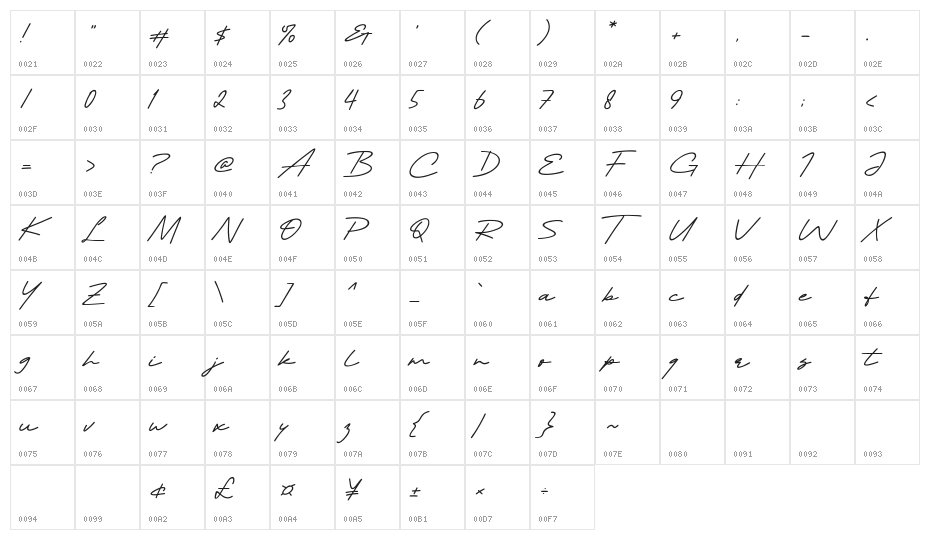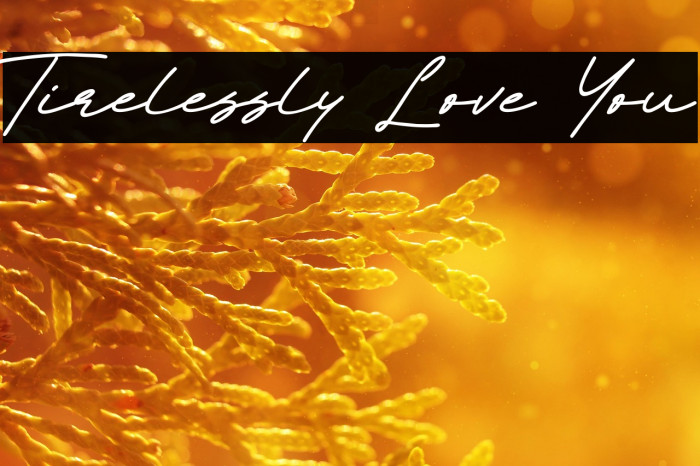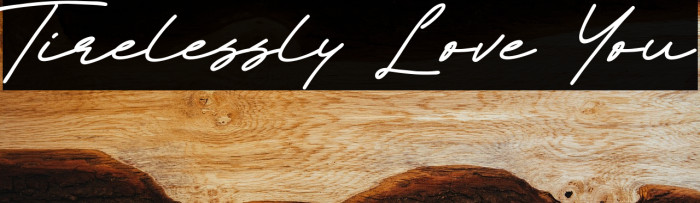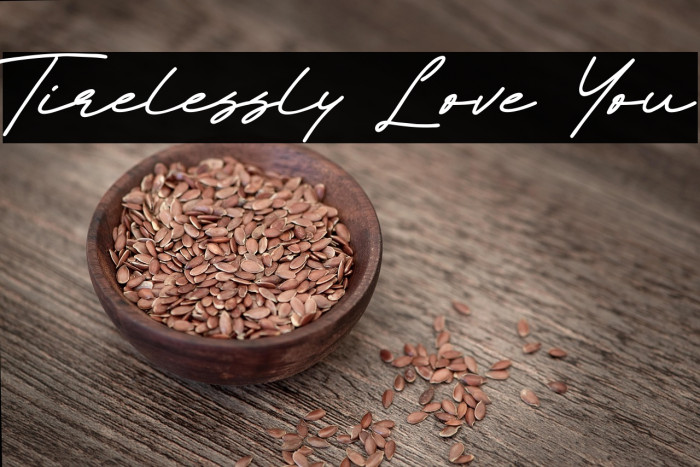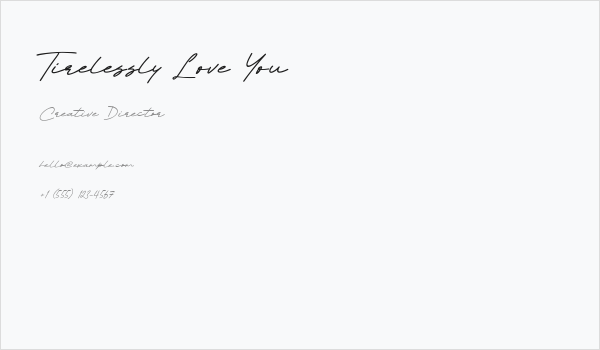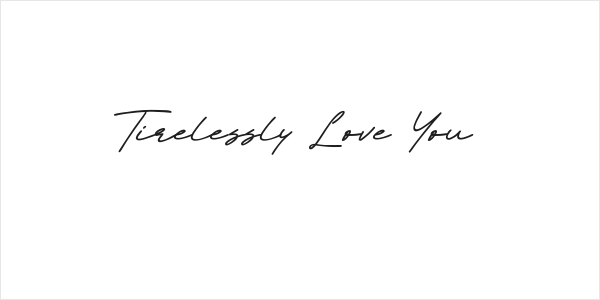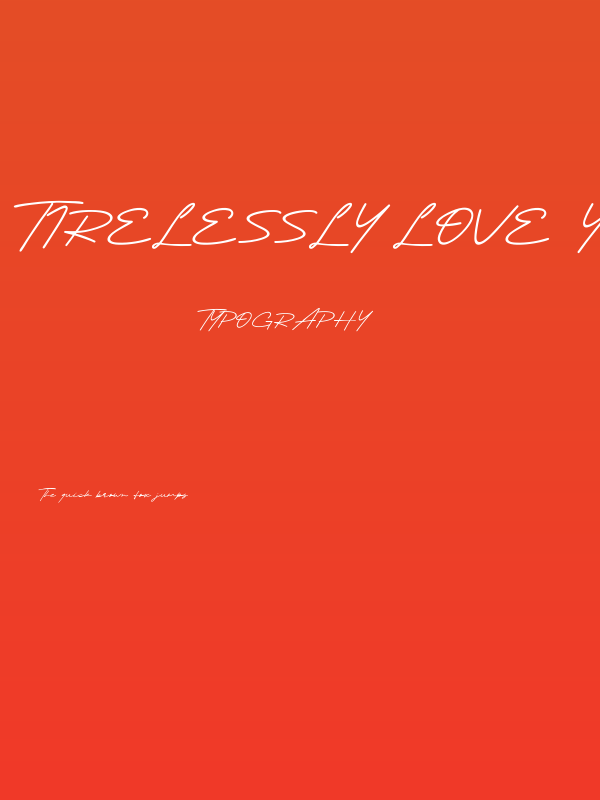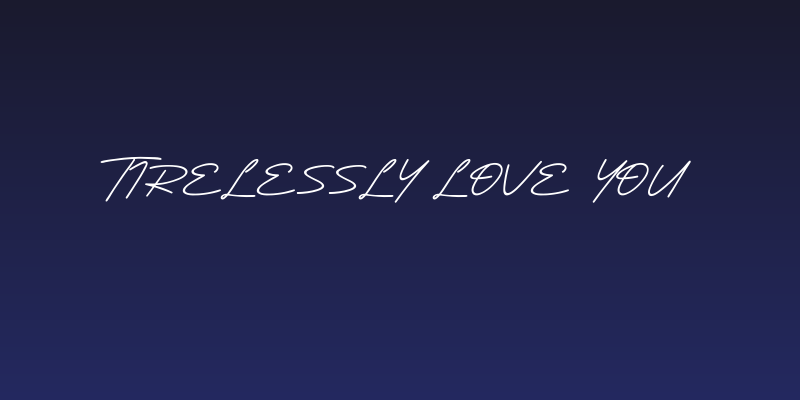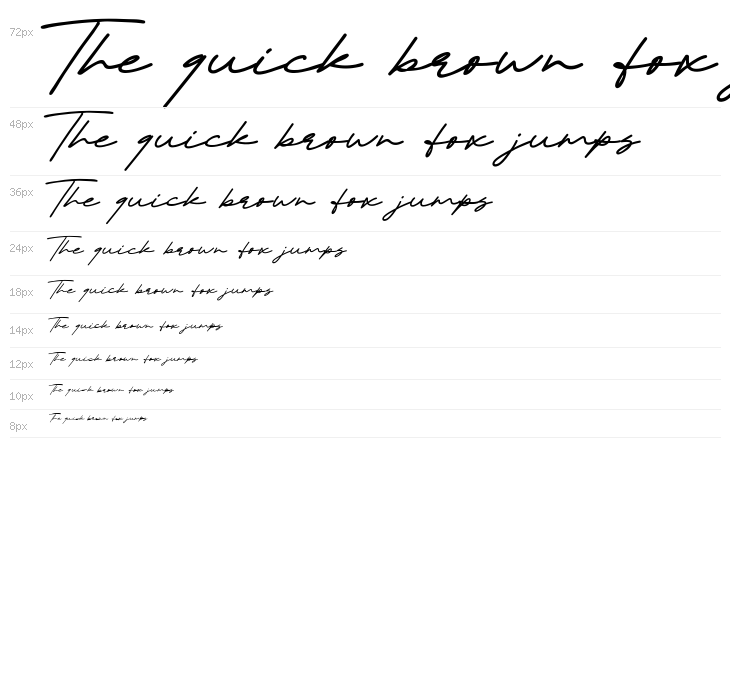
Tirelessly Love You Font
Tirelessly Love You Description
This font exudes a casual elegance with its handwritten style, characterized by smooth, flowing lines that mimic natural handwriting. The letters are slightly slanted, adding a dynamic and personal touch. The uppercase letters are bold and confident, while the lowercase letters maintain a consistent flow, enhancing readability. The numbers and special characters are crafted with the same attention to detail, ensuring a cohesive look across all elements. This font is perfect for projects that require a personal or intimate feel, such as greeting cards, invitations, or personal branding.
| Overall Style | Casual, Elegant |
| Proposed Projects | Ideal for greeting cards, invitations, personal branding, and any project needing a personal, intimate feel. |